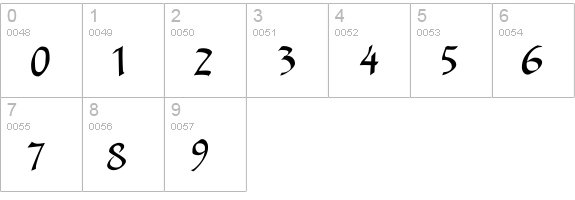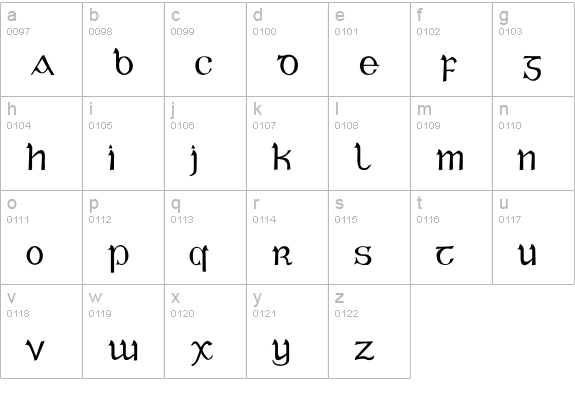
Celtic Gaelige Regular Font Details
Celtic Gaelige Regular is the standard, neutral variant in the Celtic typeface family \xE2\x80\x94 well suited to general body text, paragraphs, and standard typographic work.
The Celtic Gaelige Regular font is a beautifully crafted typeface that captures the essence of Celtic culture with its intricate design and timeless charm. This elegant font is perfect for adding a touch of Irish flair to any project, whether it be a logo, website, or invitation. The Celtic Gaelige Regular font is not only visually stunning, but also versatile and easy to read. Its classic Celtic-inspired letterforms make it a great choice for both headlines and body text. With its balanced proportions and graceful curves, this font will surely make your text stand out. Best of all, the Celtic Gaelige Regular font is available for free download at FontsMarket.com. So go ahead and add a touch of Celtic magic to your designs with this exquisite typeface.